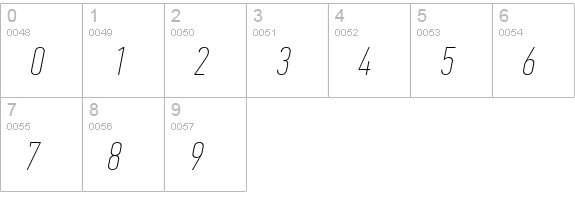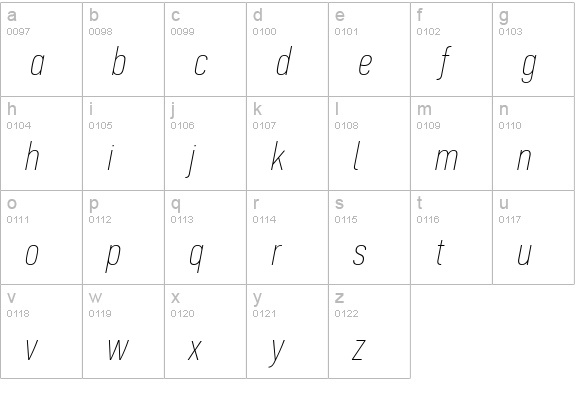
PFDinTextCompPro-XThinItalic Font Details
PFDinTextCompPro-XThinItalic font is a sleek and elegant typeface that exudes sophistication and modernity. Its thin and italic design adds a touch of style and subtlety to any project. This font is perfect for creating a sense of luxury and refinement in your designs. Best of all, PFDinTextCompPro-XThinItalic is available for free download at FontsMarket.com. Whether you are working on a branding project, editorial design, or any other creative endeavor, this font will elevate your work to the next level. Don't miss out on the opportunity to add this stunning typeface to your font collection today.